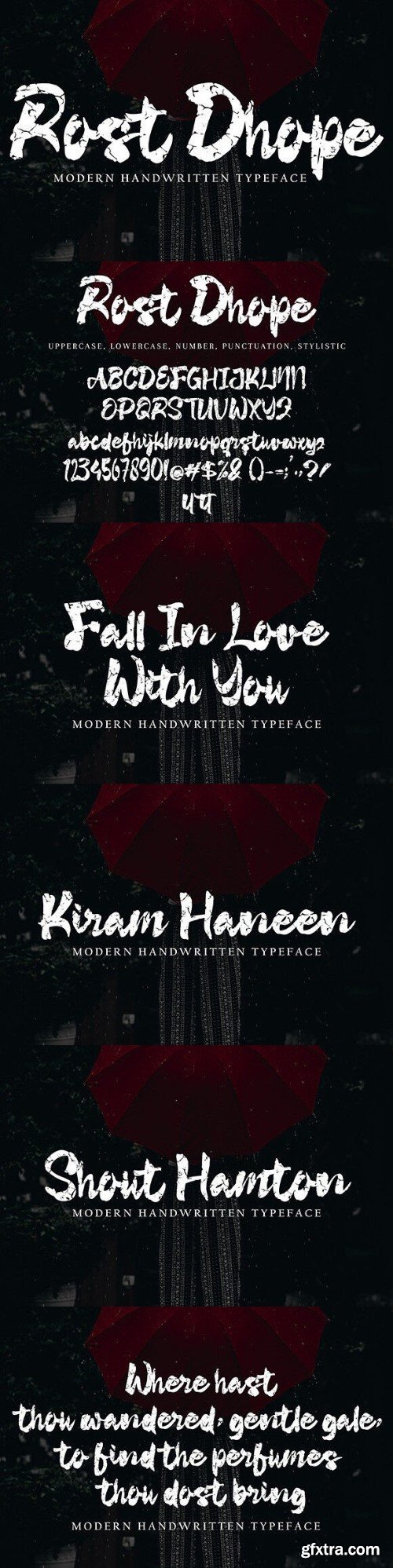
稻草人DHope字体
Rost Dhope with new style, this font will perfect for many different project ex: quotes, logo, blog header, poster, banding, letter, invitation, stationery, etc…